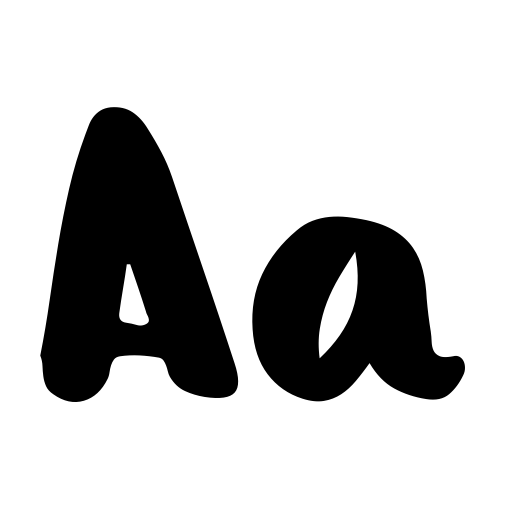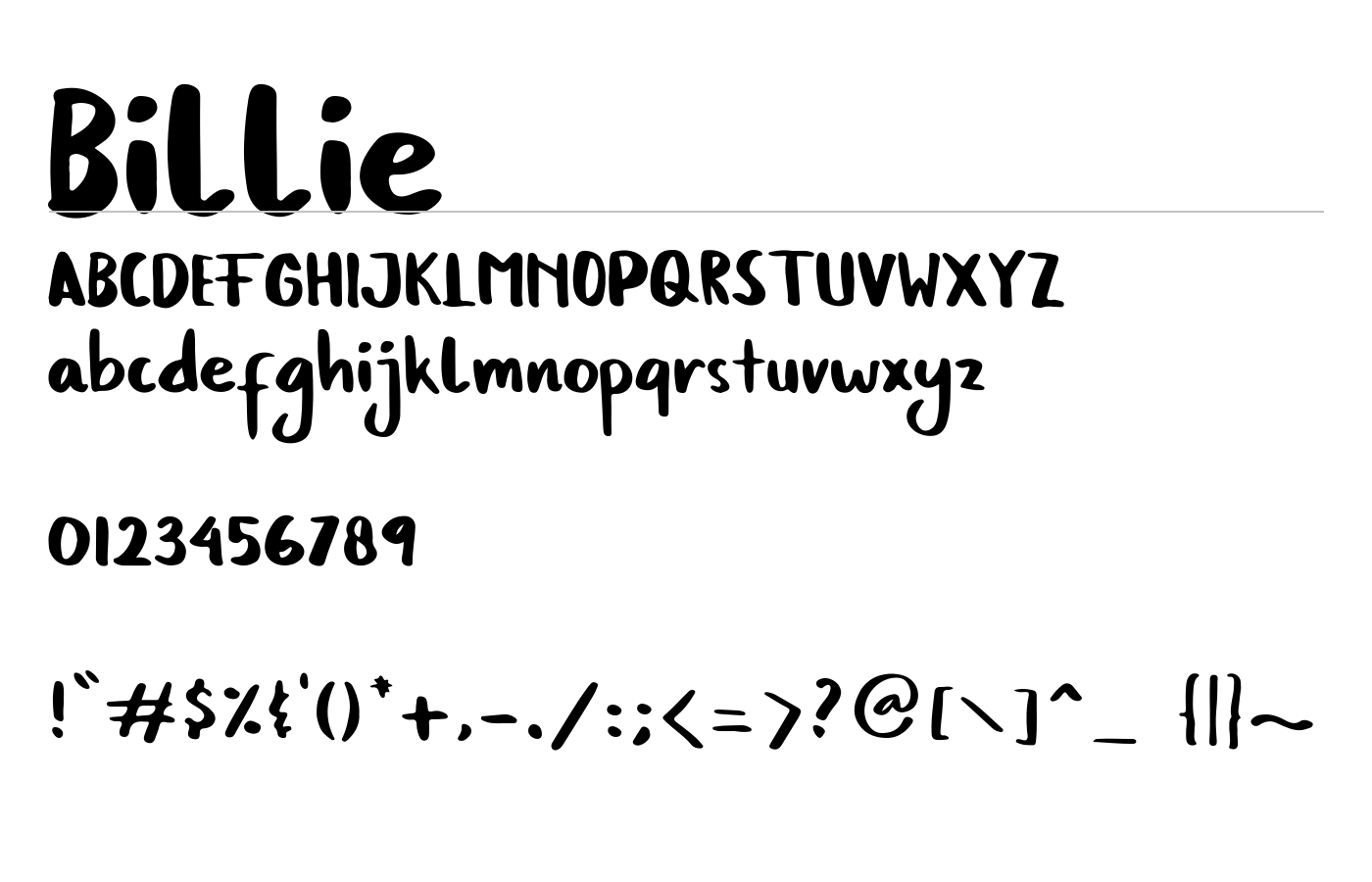
Billie is a playful handwritten font with a casual, friendly vibe marked by its rounded, uneven strokes and slightly irregular forms. Its bold weight and informal style make it perfect for creative projects, children’s materials, or any design seeking a fun, approachable personality that feels lively and personal rather than formal. This font works well in headlines, logos, and packaging where a warm, energetic tone is desired.
Billie Font